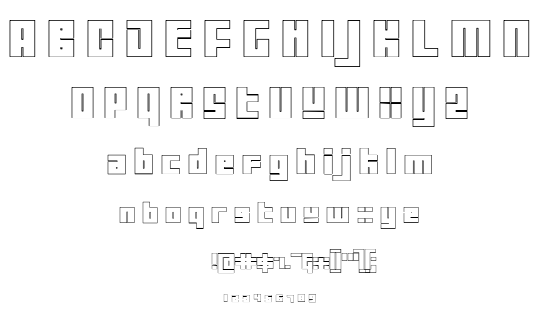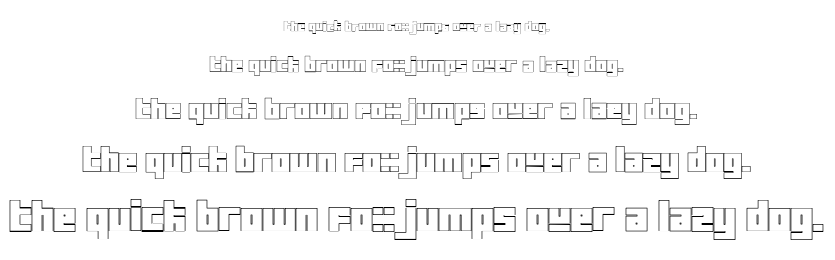
Tutor font is created for a medical interactive flash project.It was created for headlines, captions and stylish text blocks.For commercial licence please visit our site.